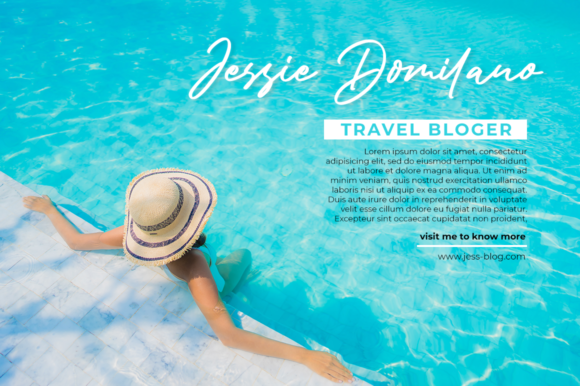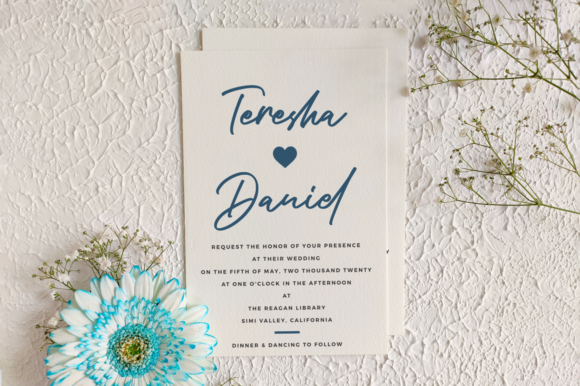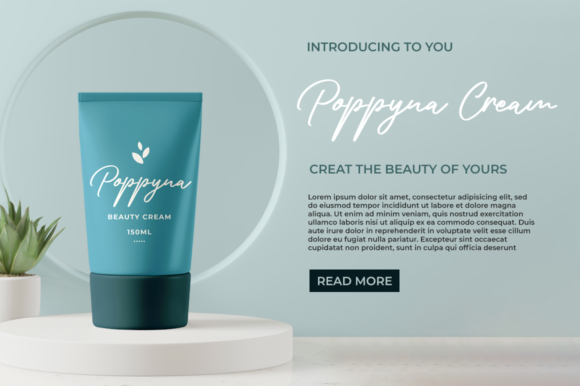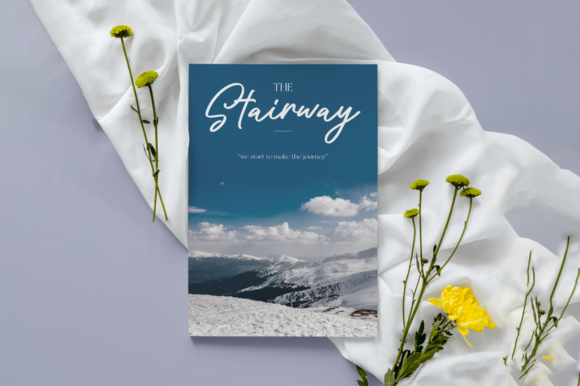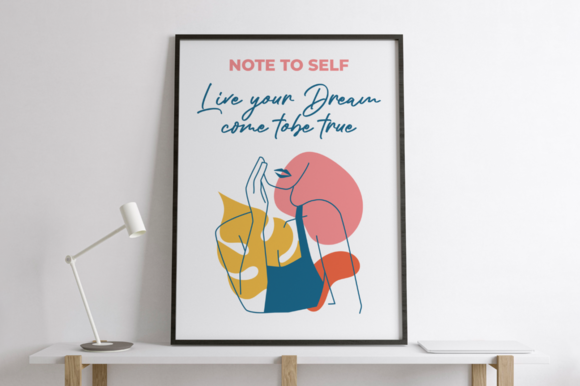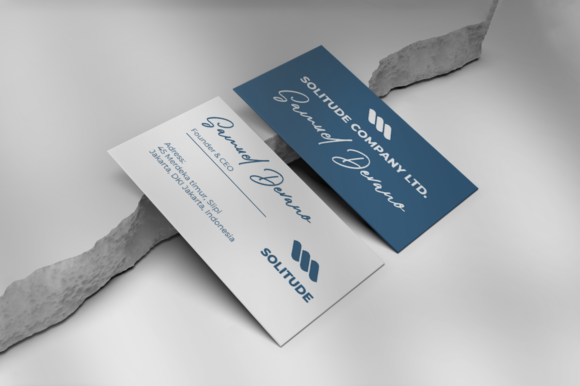
Discover the Elegance of Brithney Font: A Lovely Script Font for Your Designs
Are you looking for a font that adds a touch of style and class to your designs? Look no further than Brithney Font, a lovely and delicate script font that’s perfect for crafters, designers, and anyone who wants to create beautiful and refreshing visuals. In this article, we’ll dive into the features and benefits of Brithney Font, and explore how it can elevate your design game.
What is Brithney Font?
Brithney Font is a carefully crafted script font that’s designed to bring a touch of elegance and sophistication to your designs. With its delicate lines and curves, Brithney exudes a sense of style and refinement that’s perfect for a wide range of design applications, from wedding invitations and stationery to branding and advertising.
Key Features of Brithney Font
So, what makes Brithney Font so special? Here are just a few of its key features:
- Lovely and Delicate Design: Brithney Font features a beautiful, hand-crafted design that’s both elegant and refined.
- PUA Encoded: Brithney is PUA (Private Use Area) encoded, which means you can access all glyphs and swashes with ease. This makes it easy to customize your text and add unique flourishes to your designs.
- Versatile: Brithney Font is perfect for a wide range of design applications, from print to digital media.
Benefits of Using Brithney Font
So, why should you choose Brithney Font for your designs? Here are just a few benefits:
- Adds a Touch of Elegance: Brithney Font adds a touch of sophistication and refinement to your designs, making them perfect for high-end clients or special occasions.
- Customizable: With its PUA encoding, Brithney Font is easy to customize, allowing you to create unique and personalized designs.
How to Use Brithney Font in Your Designs
Using Brithney Font in your designs is easy. Here are a few tips:
- Pair it with Other Fonts: Brithney Font looks great paired with other fonts, such as sans-serif fonts or bold scripts.
- Experiment with Swashes: Brithney Font features a range of swashes and glyphs that you can use to add unique flourishes to your designs.
- Use it for Headings and Titles: Brithney Font is perfect for headings and titles, where its elegant design can really shine.
In conclusion, Brithney Font is a lovely and delicate script font that’s perfect for designers and crafters who want to add a touch of style and class to their designs. With its PUA encoding, customizable design, and ease of use, Brithney Font is an excellent choice for a wide range of design applications. So why not give it a try and see how it can elevate your design game?